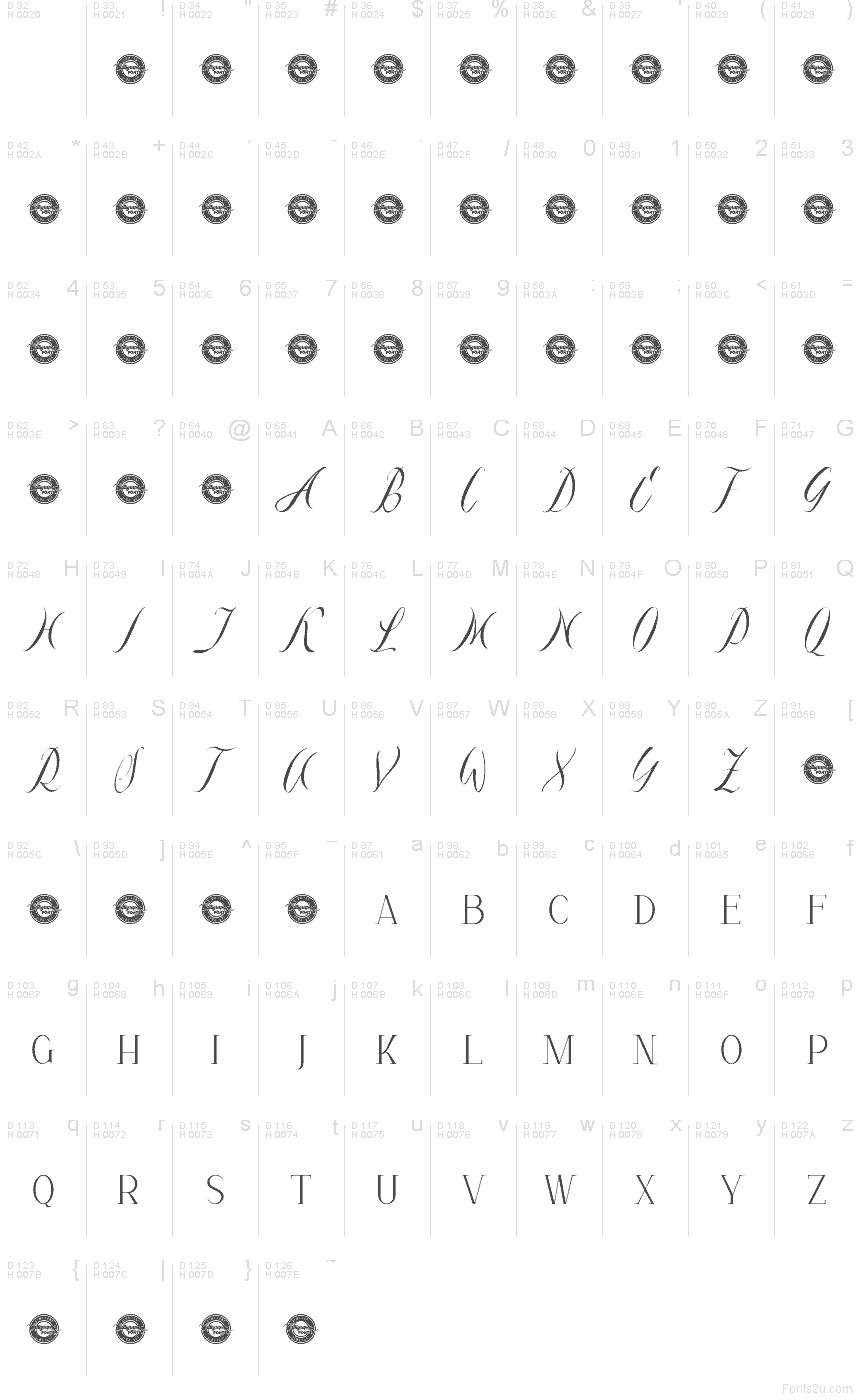
Greyhens Demo
Greyhens font by Calligraphy Fonts is a free elegant serif typeface that stretches tall, lean letters into a refined, almost runway-like silhouette. The strokes are whisper-thin yet confident, with long, sweeping diagonals and sharp, needle-like serifs that feel both delicate and razor precise. It has a cool, airy presence-lots of white space between characters-so every word looks like it’s been carefully set on a luxury packaging mockup.
Using Greyhens, headlines and logos instantly take on a fashion editorial mood, making this free font a natural fit for beauty branding, perfume labels, book covers, high-end invitations, and magazine mastheads. It shines on large titles where its fine lines can breathe, so pair it with a clean, understated sans serif for body copy and let Greyhens handle the dramatic, oversized moments.